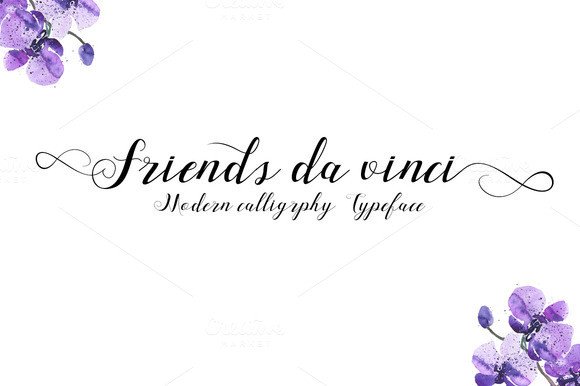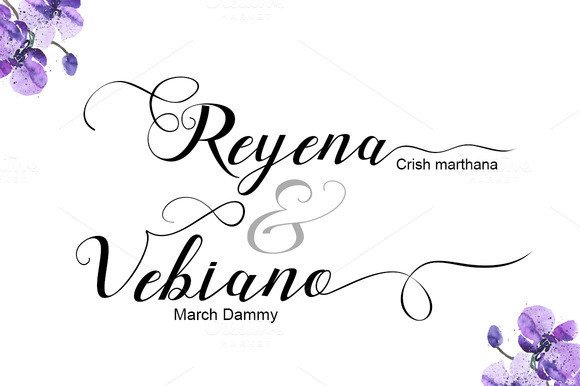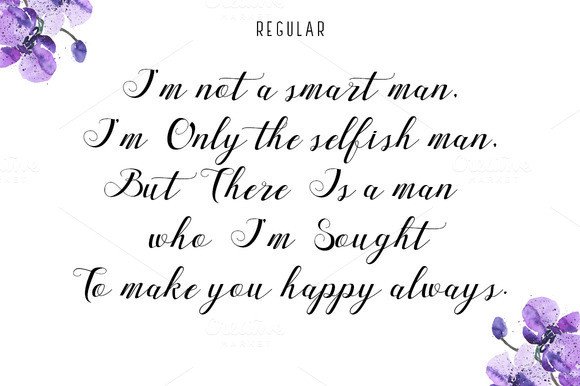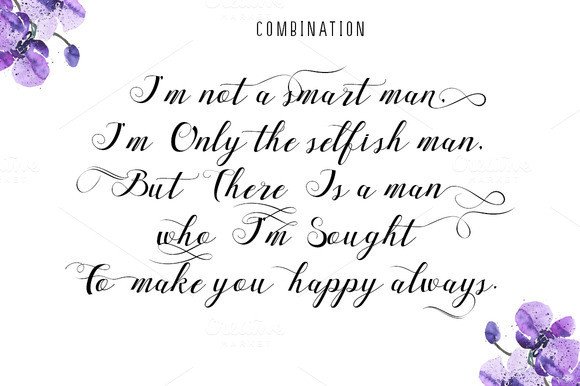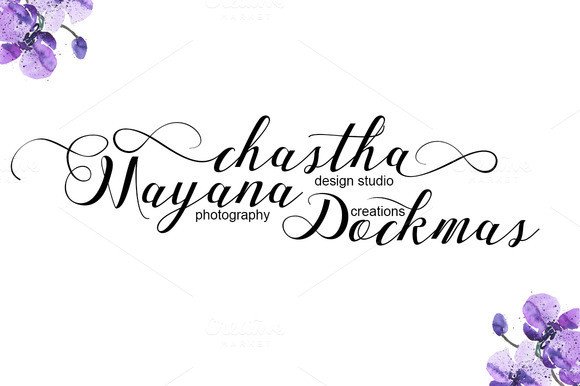
Friends Da Vinci Font
About Friends Da Vinci Font
Friends Da Vinci pays homage to the art icon himself; this calligraphic font is a wonderfully embellished and artful script, ideal for a large range of creative projects both in digital and print.